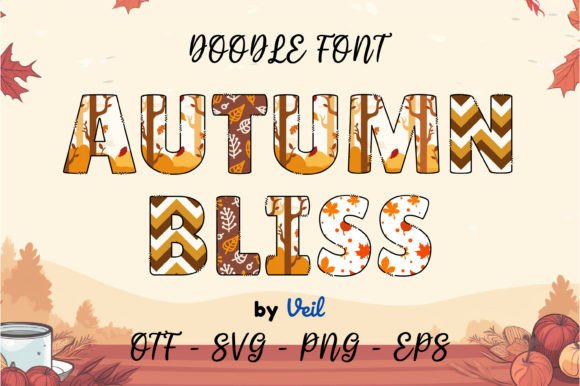
Discovering Autumn Bliss Font: A Playful Companion for Creative Projects
I’ll never forget the time I was working on a children’s book design project, and I just couldn’t seem to find the perfect font. The client wanted something playful, yet easy to read, and I was determined to deliver. That’s when I stumbled upon the Autumn Bliss Font. It was like a breath of fresh air – whimsical, colorful, and full of personality. In this article, I’ll share my experience with this delightful font, its features, and how to make the most of it in your designs.
An Honest Review of Autumn Bliss Font
- ✨ Whimsical and playful feel, perfect for children’s books, posters, and invitations
- ✅ Easy to read, even for young audiences
- 🎨 Available in both black and color versions, offering flexibility in design
Autumn Bliss Font was inspired by the warmth and coziness of the autumn season. The designer, a lover of nature and all things whimsical, set out to create a font that would capture the essence of fall. With its playful curves and colorful feel, Autumn Bliss Font is sure to bring a touch of autumn magic to your designs.